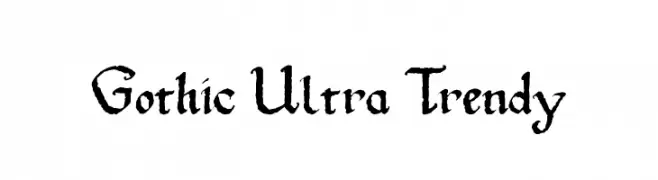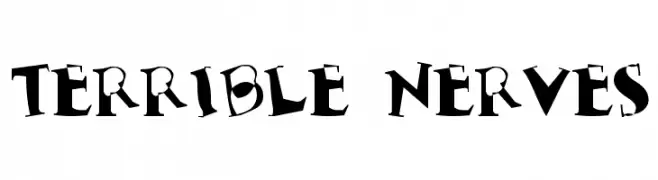
A bold, Gothic-inspired font with a distressed, hand-crafted appearance.
A modern, high-contrast font with elegant, elongated letterforms.
A bold, geometric font with strong, uniform strokes and a commanding presence.
A bold, playful font with dynamic and whimsical characters.
A playful, rounded font with a hand-drawn, whimsical style.
A playful, handwritten font with bold, rounded characters and charming curls.
A bold, geometric Art Deco font with angular lines and a vintage flair.